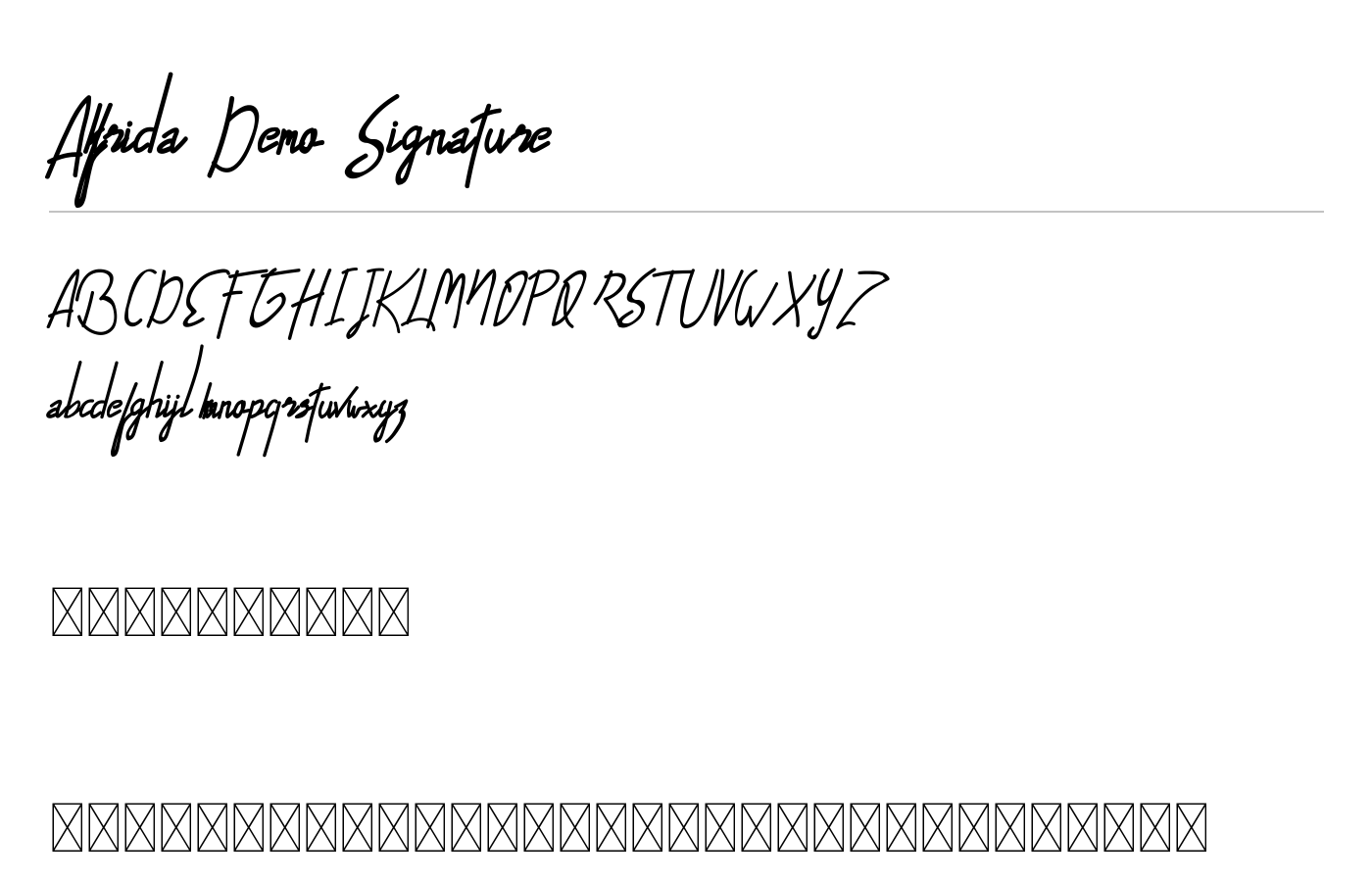
Alfrida Demo is a slender, handwritten script font that captures the elegance of a personal signature with its tall, narrow letterforms and fluid, natural strokes. Its delicate yet dynamic style conveys a modern, sophisticated feel, making it ideal for branding, invitations, and creative projects that seek a touch of individuality and refinement. This font works best in logos, headlines, and artistic designs where a graceful, personal touch is desired.
Alfrida Demo Font
About Alfrida Demo Font